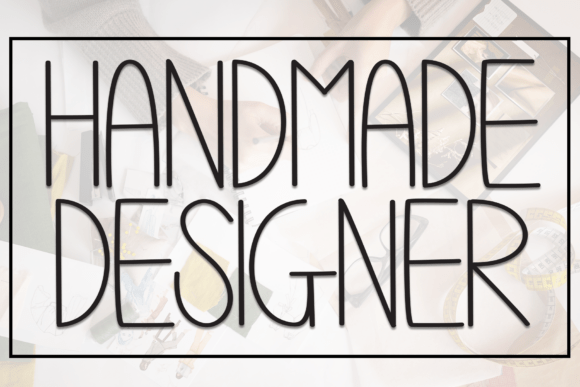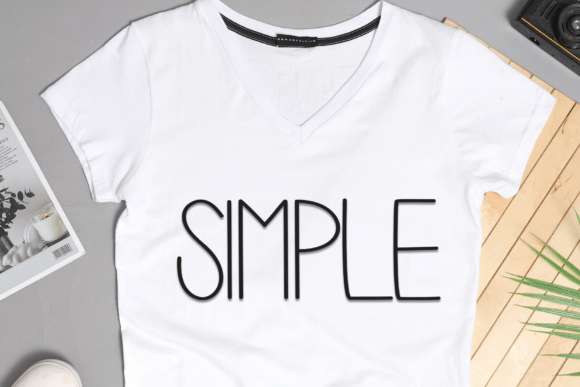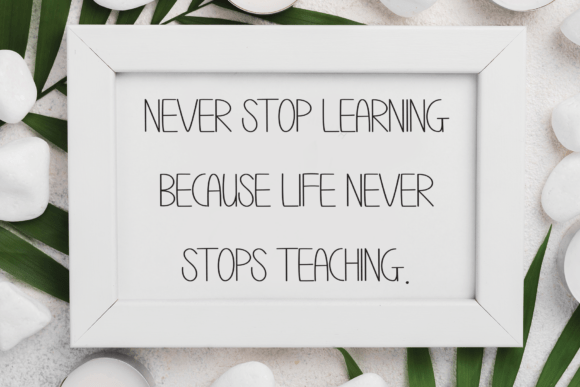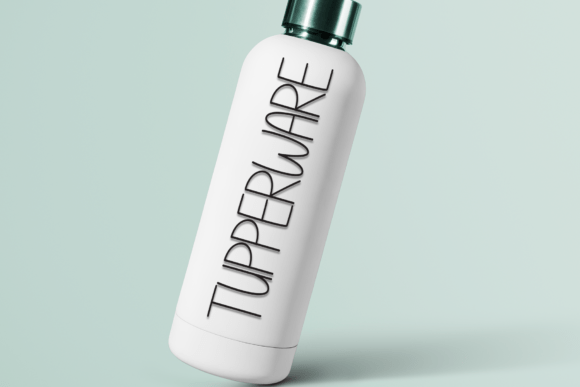
Handmade Designer Font
About the Handmade Designer Font
Add a touch of class to your work with the Handmade Designer Font, a truly exceptional typeface. Handmade Designer is a casual and neat display font that radiates a fresh, friendly vibe. With clean lines and a relaxed structure, it’s perfect for packaging, posters, and social media graphics. The approachable design adds charm and clarity to projects while maintaining a polished appearance.
Its friendly, casual nature makes it ideal for projects requiring a touch of handmade charm, such as branding for artisan products, children’s books, or invitations to informal events. It excels in headlines, short text blocks, and logos where its unique character can shine. However, its informal structure makes it less suitable for body text or lengthy paragraphs, and its legibility may suffer in small sizes or dense layouts.
For optimal pairings, consider complementing its relaxed feel with a crisp sans-serif like Open Sans for body copy or a more structured serif such as Merriweather for a sophisticated contrast. A playful script font could also add personality, depending on the project’s specific needs. Avoid pairing it with overly geometric or heavily condensed fonts which might clash with its organic feel.
Handmade Designer’s overall personality is best described as cheerful and approachable, yet refined. This makes it a versatile option for projects needing a balance between casual warmth and professional polish.
Handmade Designer Font Usage Examples
Handmade Designer Font Example